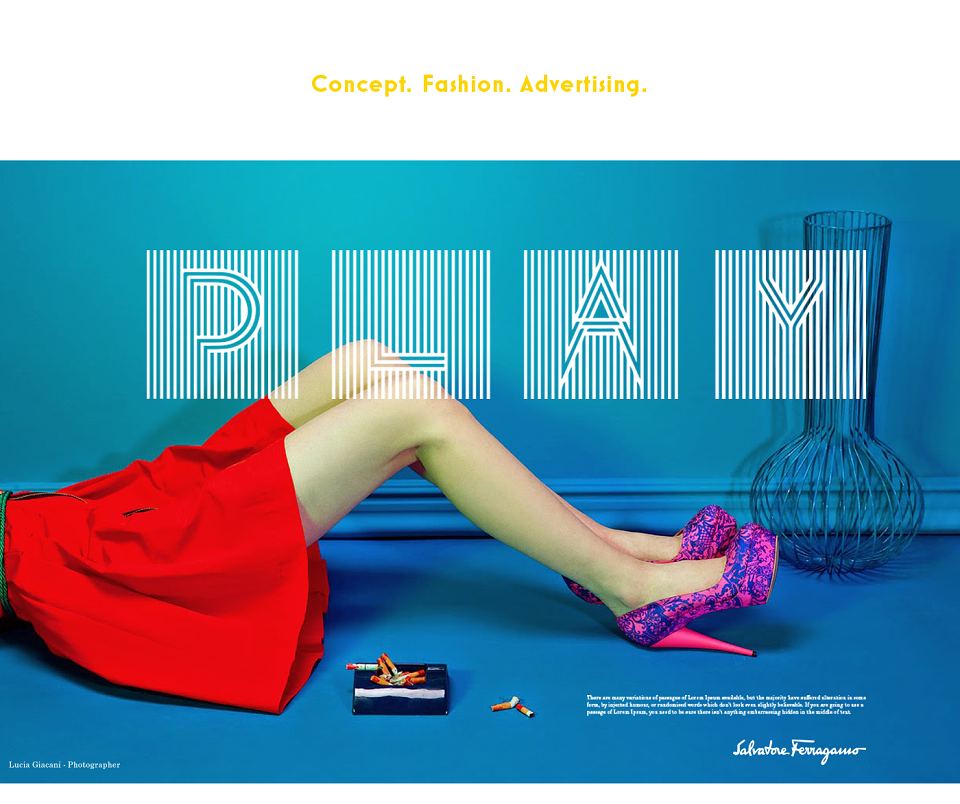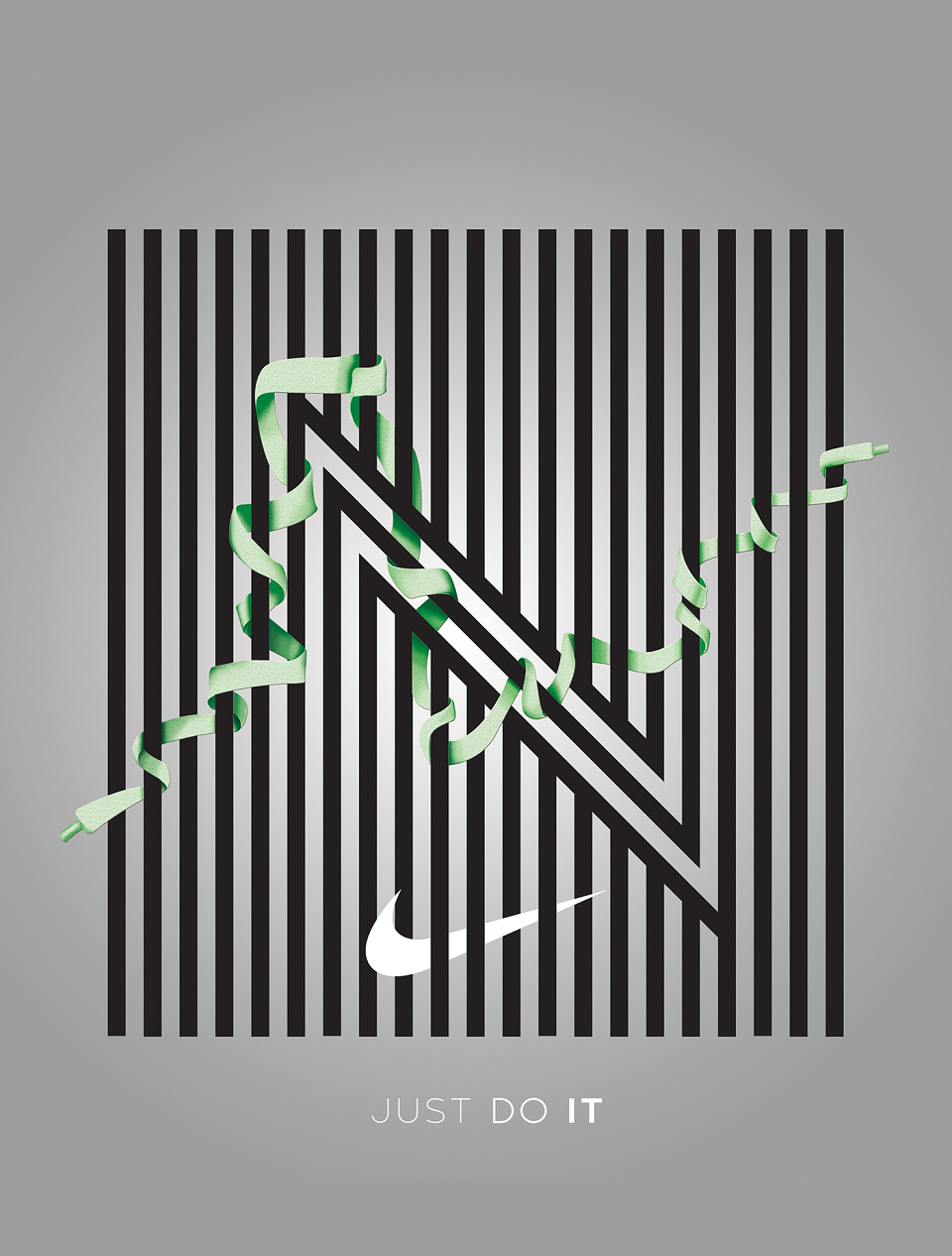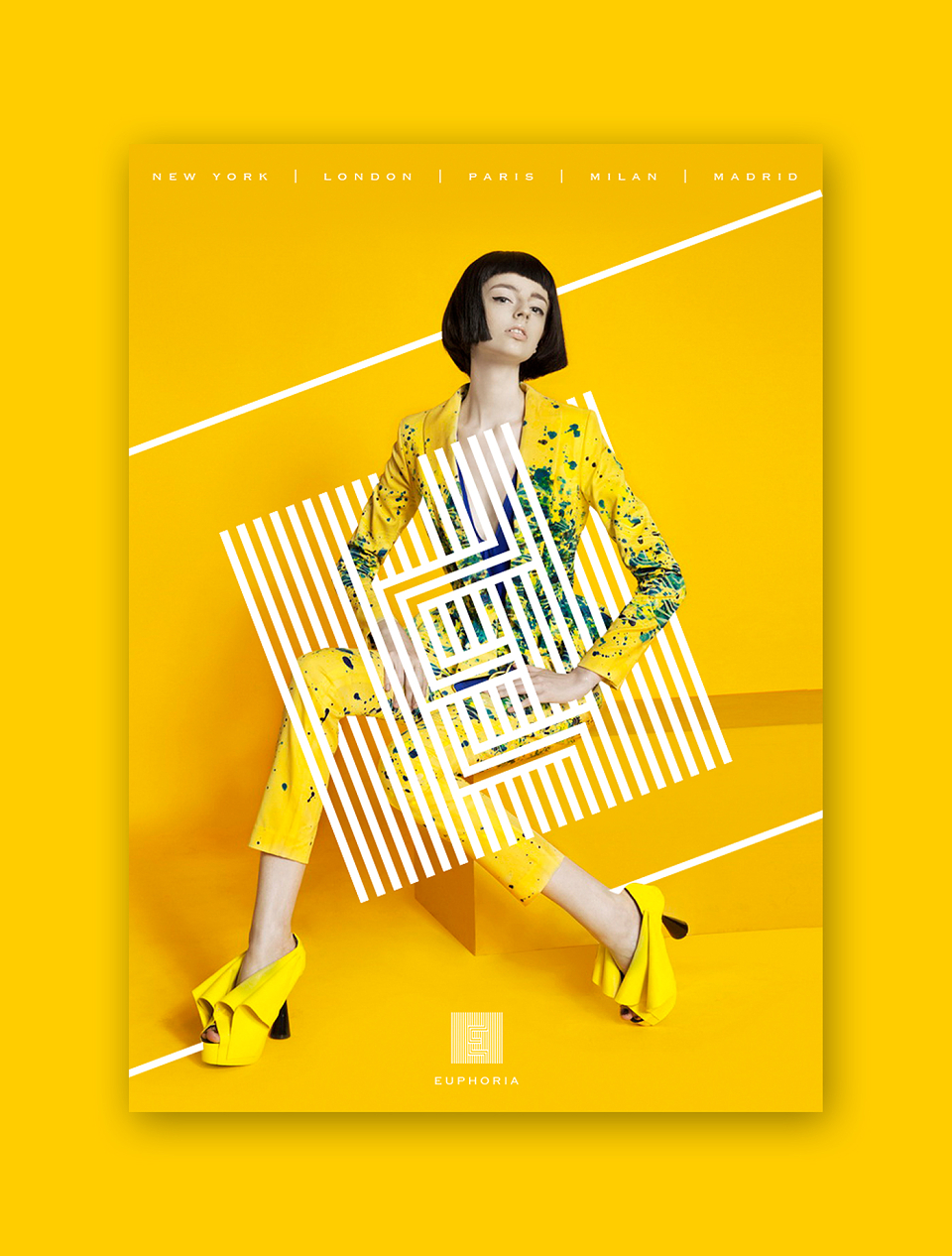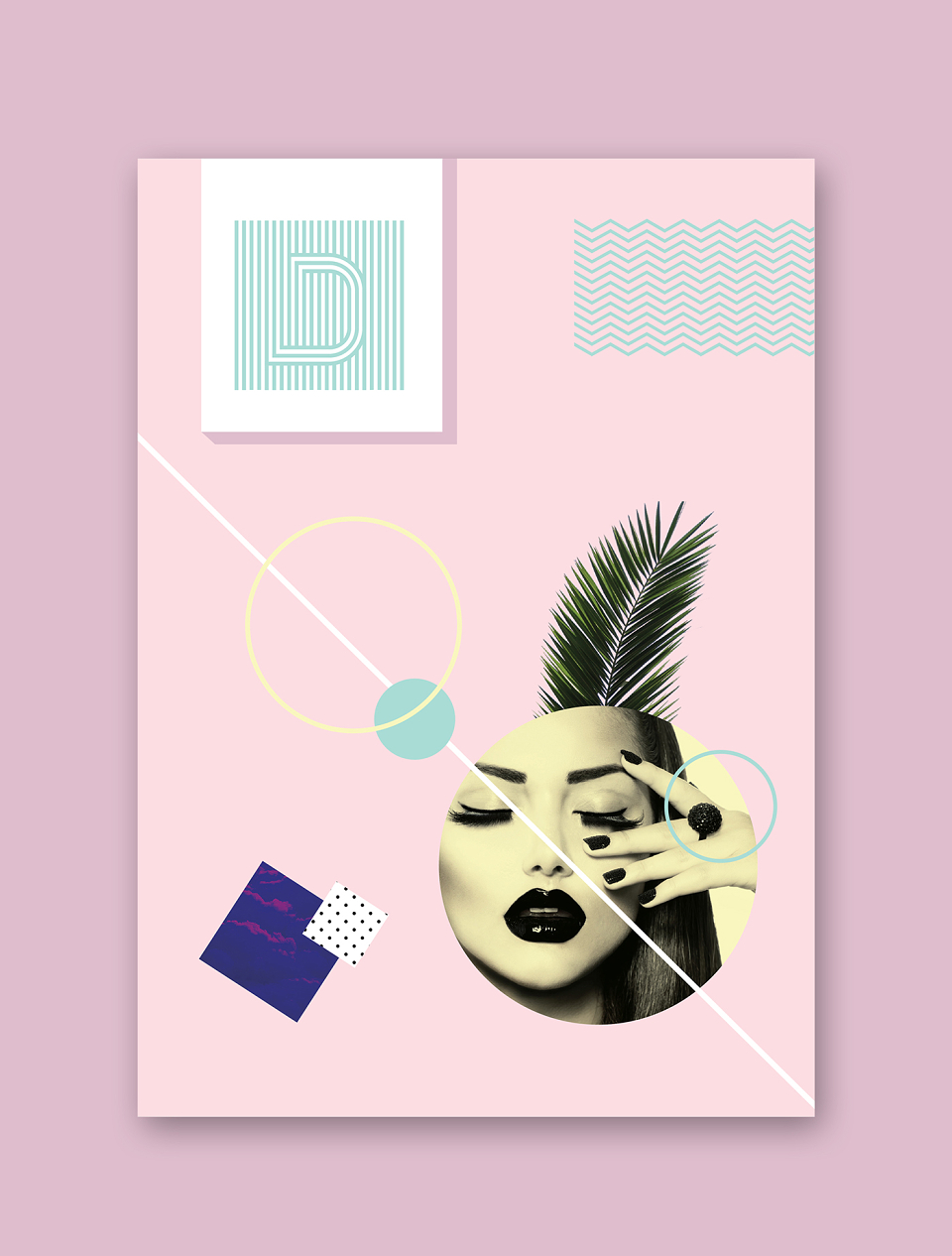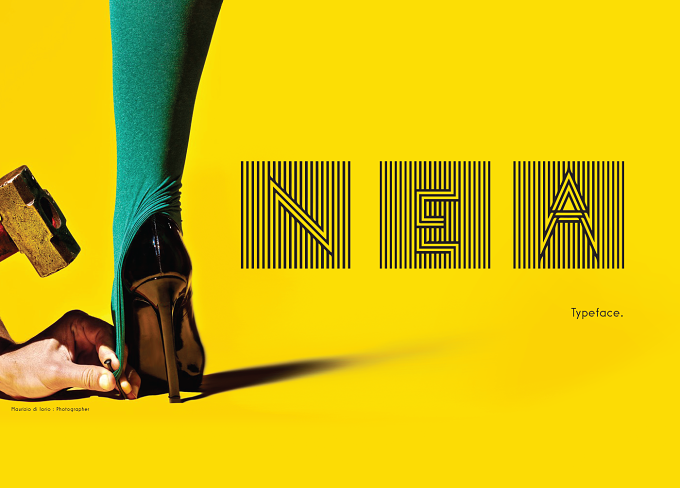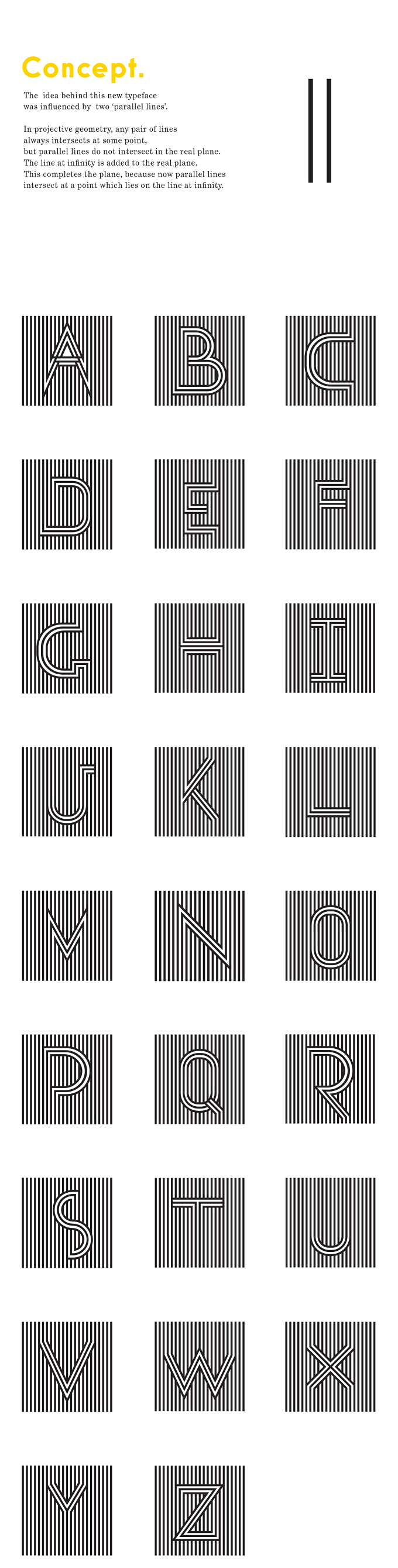
The idea behind this new typeface was influenced by two ‘parallel lines’. In projective geometry, any pair of lines always intersects at some point, but parallel lines do not intersect in the real plane. The line at infinity is added to the real plane. This completes the plane, because now parallel lines intersect at a point which lies on the line at infinity.
NEA - Typeface